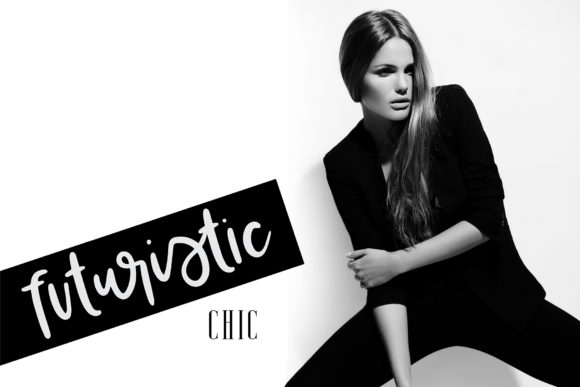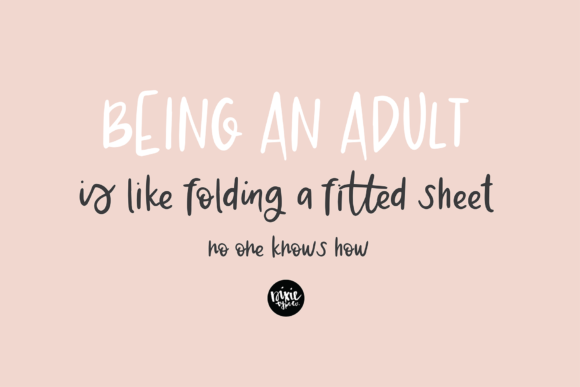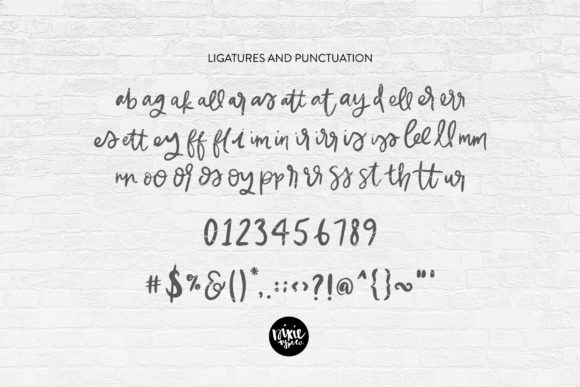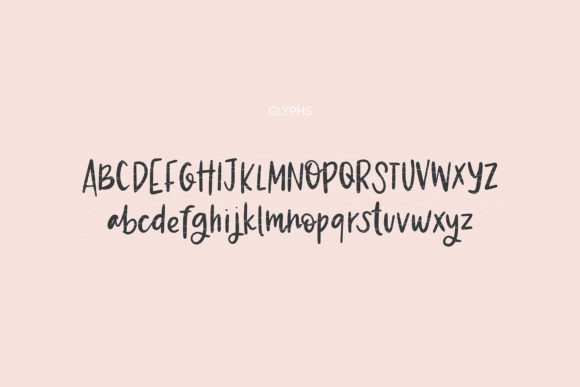
Coralee Font
About Coralee Font
Coralee is a flowing handwritten font. Its casual charm makes it appear wonderfully down-to-earth, readable and, ultimately, incredibly versatile. Coralee will look outstanding in any context, whether it’s being used on busy backgrounds or as a standalone headline!